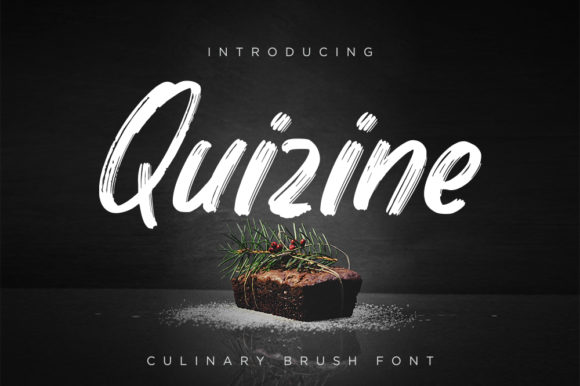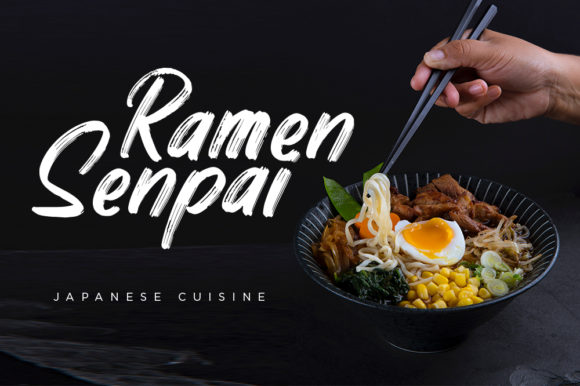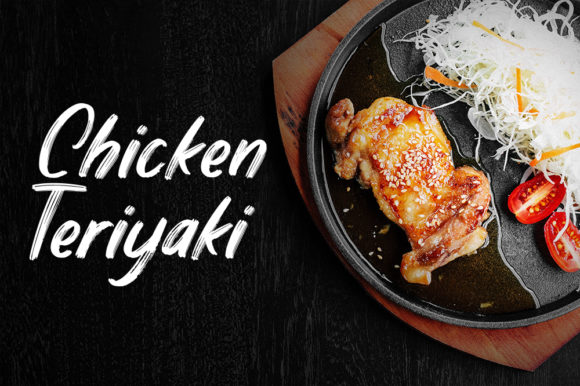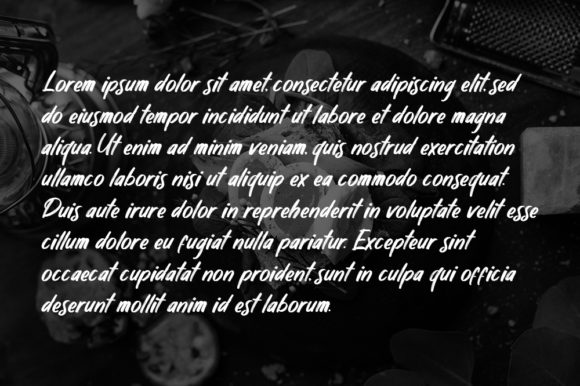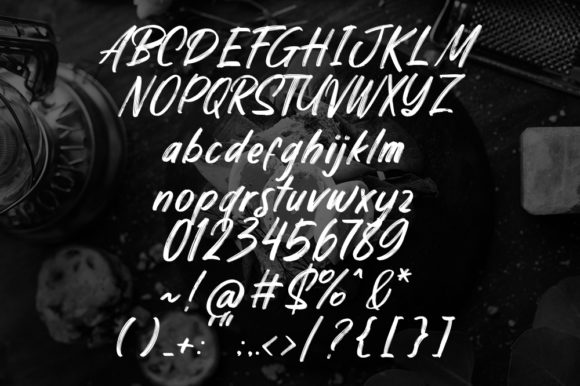
Quizine Font
About Quizine Font
Quizine results out of a stunning pairing of a brush pen and pencil that makes it look incredibly endearing and authentic. Use this gorgeous and unique Quizine to bring any DIY project to life!